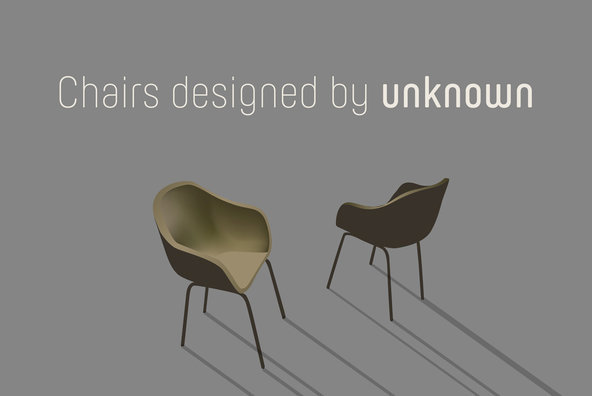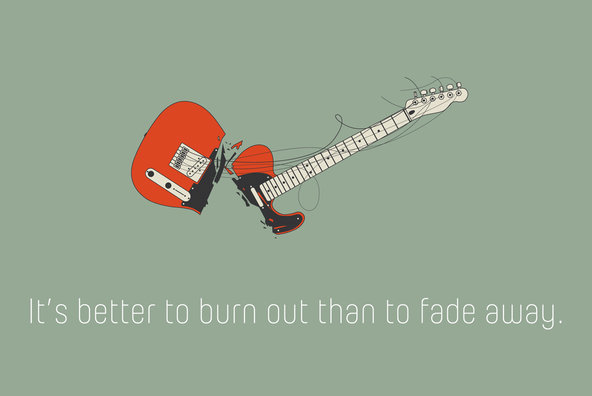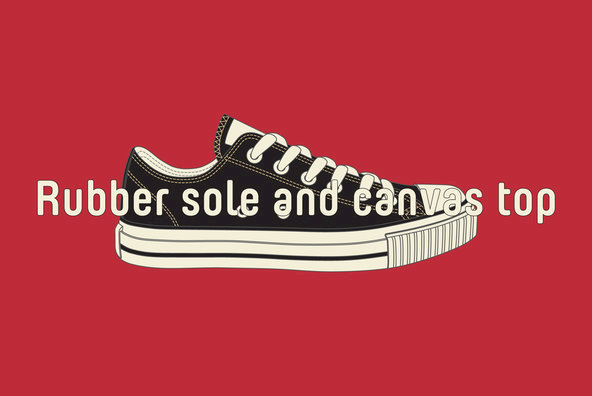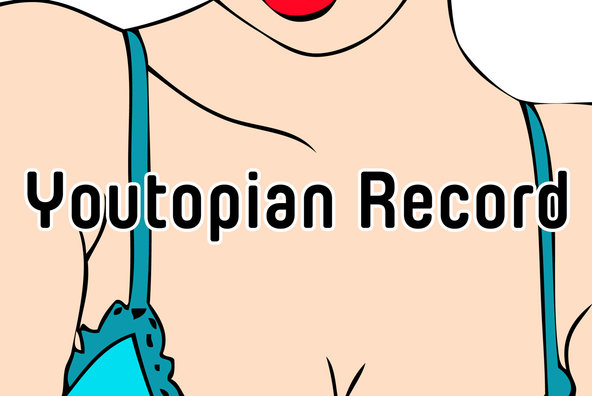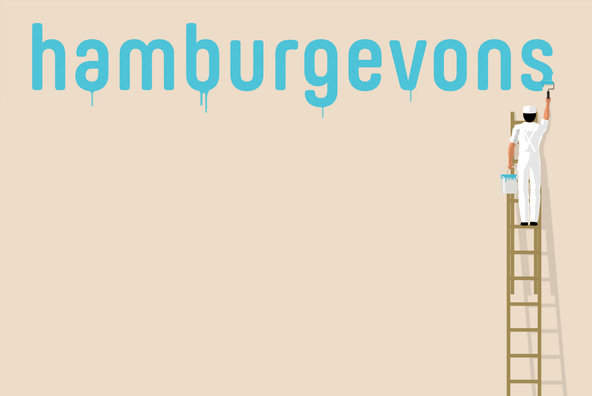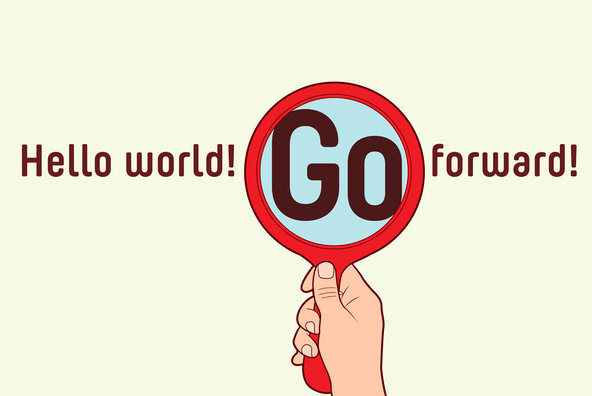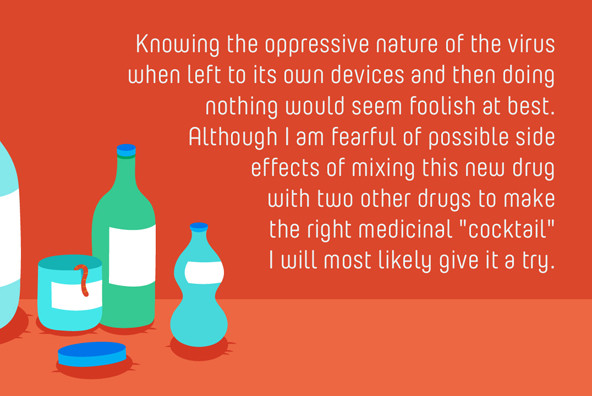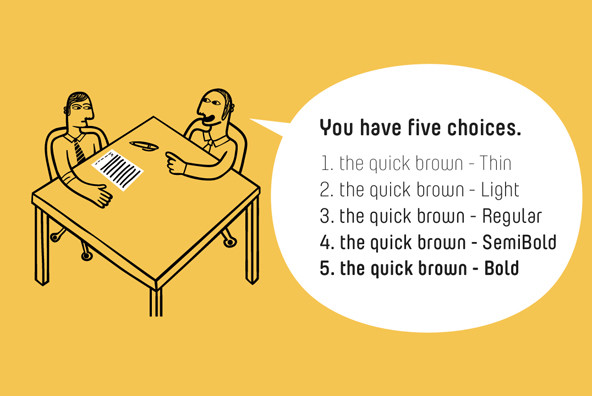
Yummo is a geometric and somewhat condensed sans serif type family that can be used in wide range of applications. The minimal glyphs that had been shaped superbly will give modern and contemporary impressions. At the same time the rounded shape make your typography softer and cuter. Yummo is not only geometric rounded font but they have also humanness and loveliness as though they were hadwritten. To accomdate wide range of usage This family consists of 5 wights and includes diacritics for most European in each weights.